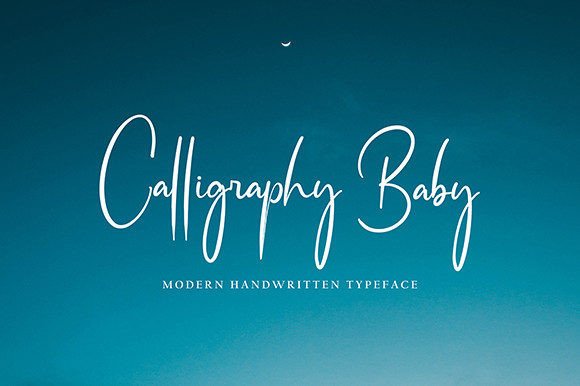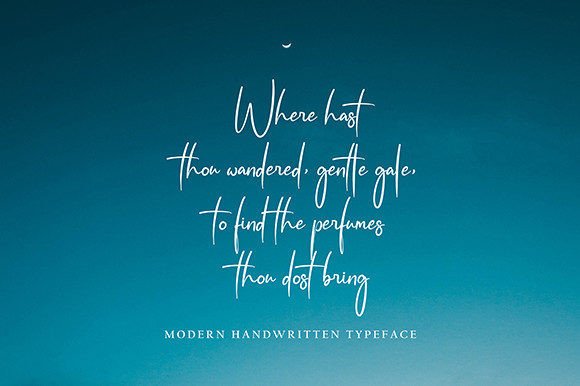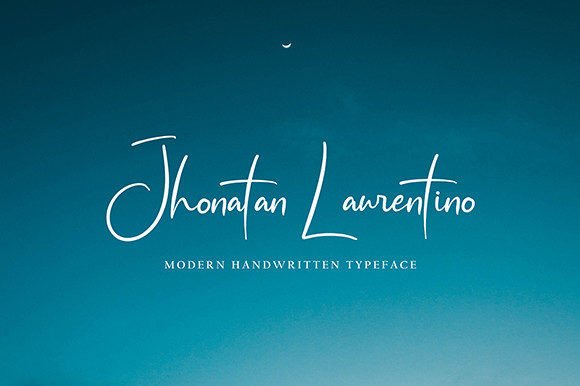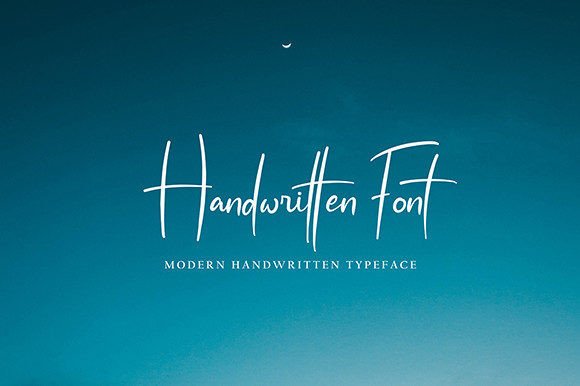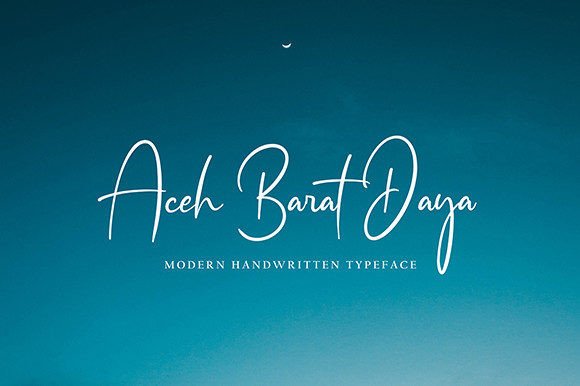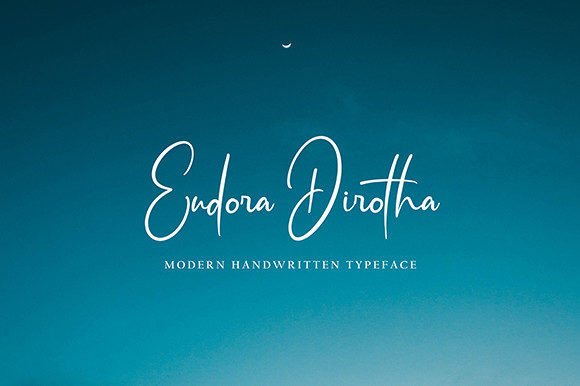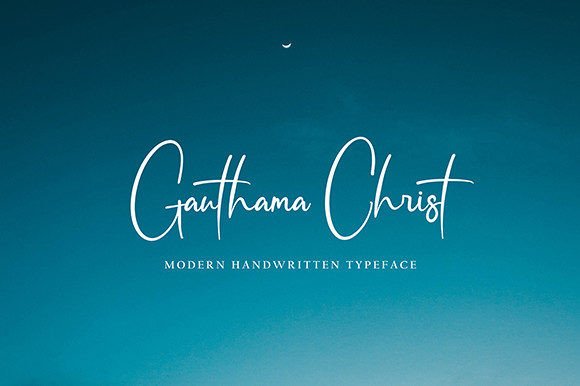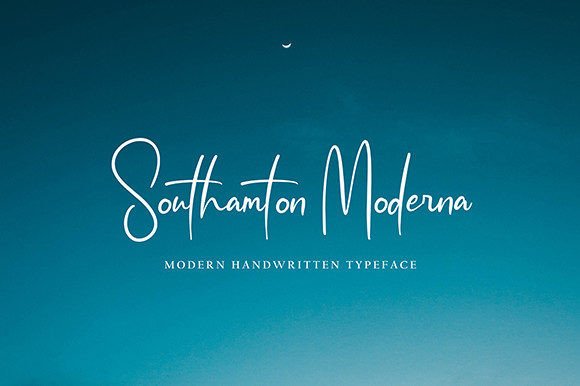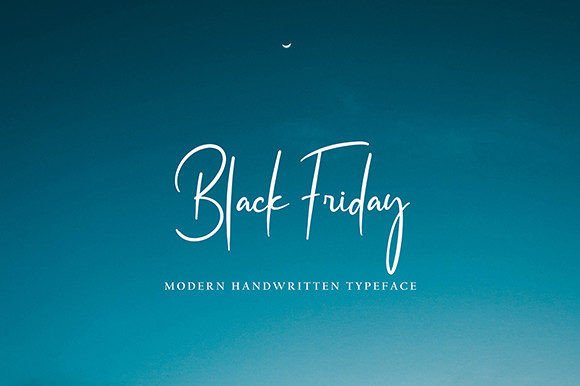
Calligraphy Baby Font
Calligraphy Baby Handwritten Font – Natural and Elegant Script
The Calligraphy Baby Handwritten Font is a beautiful script typeface that blends natural cursive strokes with stylish modern design. Created to bring warmth and charm to your work, this font is perfect for both digital and print applications. Whether you’re designing invitations, logos, or posters, it ensures your projects look elegant and professional.
A Cursive Script with Natural Flow
The Calligraphy Baby Handwritten Font is inspired by authentic handwriting, giving it a unique personality. Its smooth strokes and natural flow provide sophistication while keeping it approachable. Because of this, it works seamlessly across branding, quotes, and creative designs.
Perfect for Invitations and Stationery
One of the best uses of the Calligraphy Baby Handwritten Font is in invitations and stationery projects. Its cursive elegance makes wedding cards, thank-you notes, and event programs feel refined and romantic. At the same time, it is also suitable for posters, business cards, and personal letters, adding character to every design.
The Calligraphy Baby Handwritten Font adapts beautifully to a wide variety of applications. From blog headers and product packaging to branding and social media posts, it provides a cursive style that feels modern yet timeless. Its flexibility ensures it becomes a valuable addition to any designer’s toolkit.
Why Designers Love Calligraphy Baby Font
Designers love the Calligraphy Baby HandwrittenFont because it combines natural cursive charm with readability. Its flowing style makes projects stand out, while its clarity ensures professional results. This harmony of beauty and practicality is what makes it so appealing.
In summary, the Calligraphy Baby HandwrittenFont is an elegant, versatile, and natural cursive script. With its stylish handwritten flow, quick installation, and broad usability, it is perfect for invitations, posters, quotes, and branding. Don’t miss the chance to download Calligraphy Baby HandwrittenFont and add timeless elegance to your next creative project.